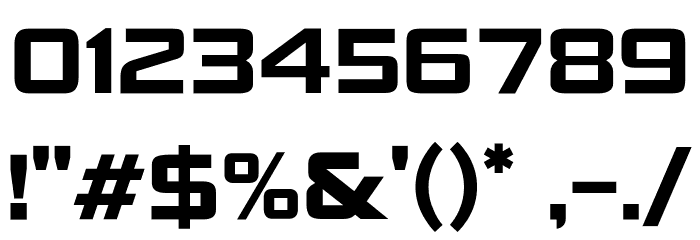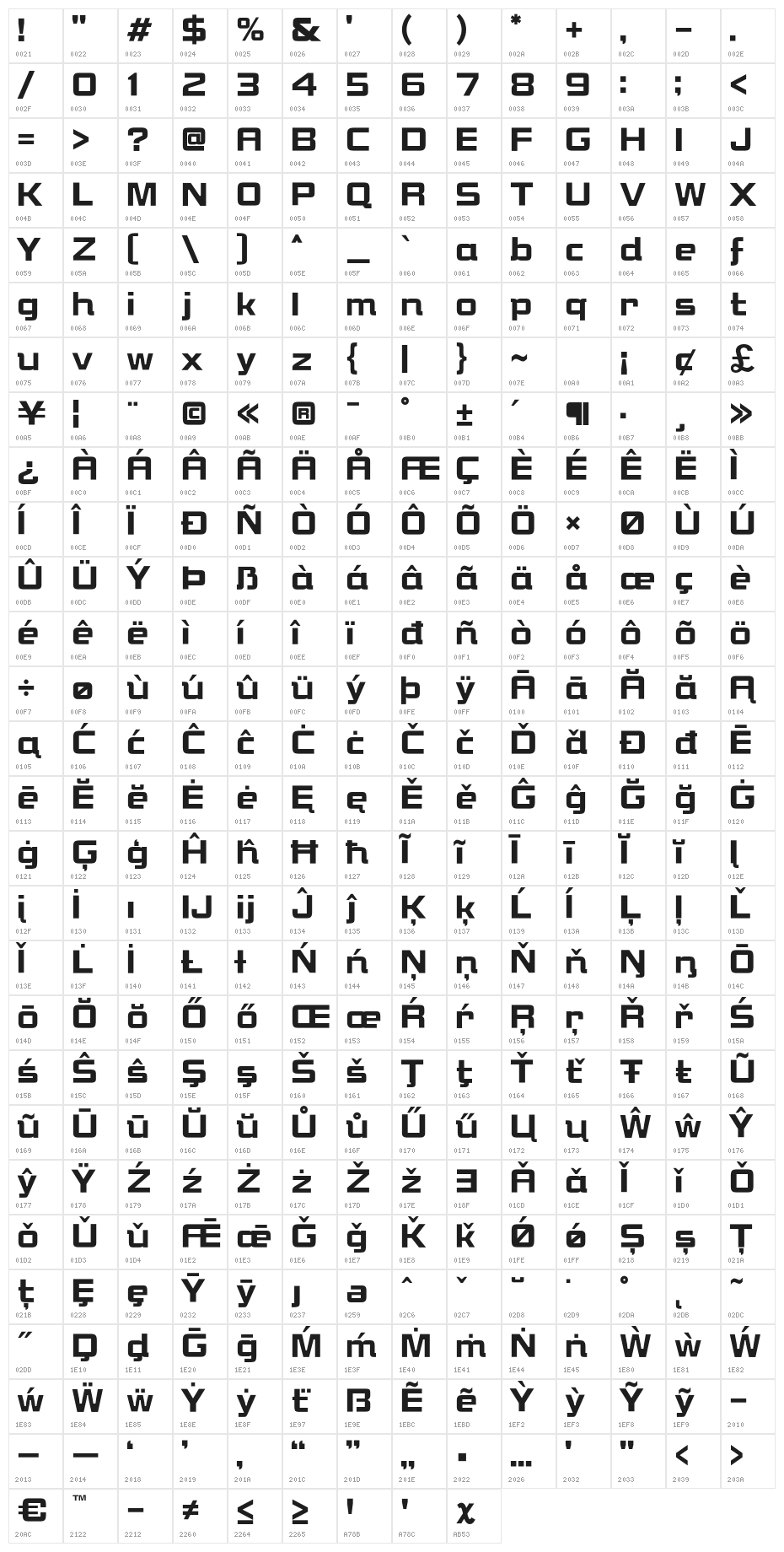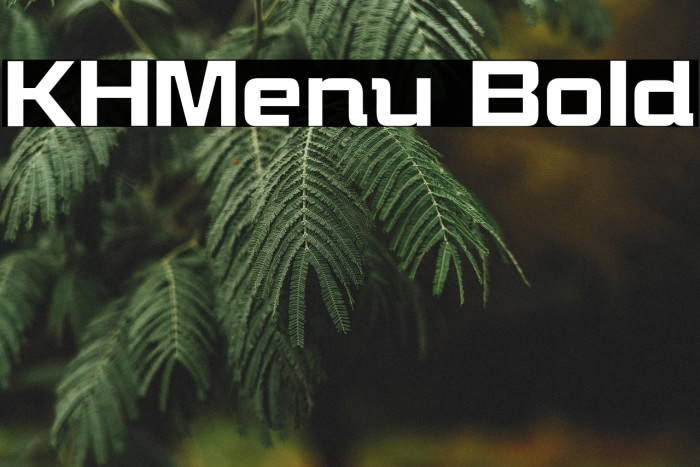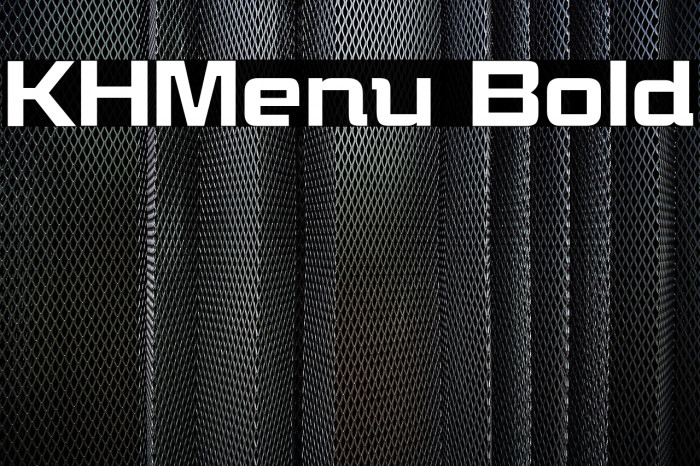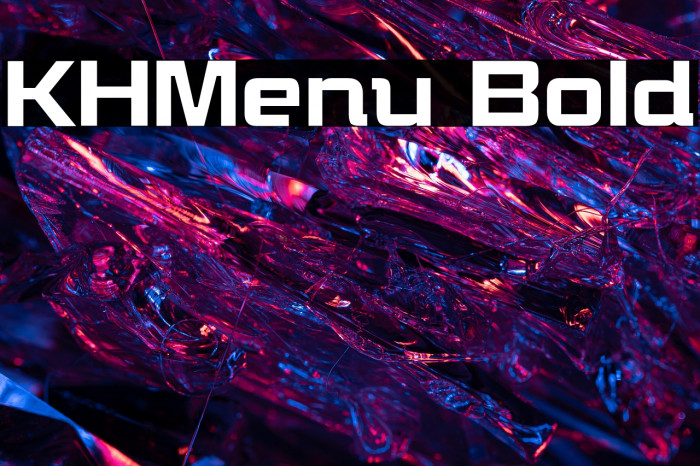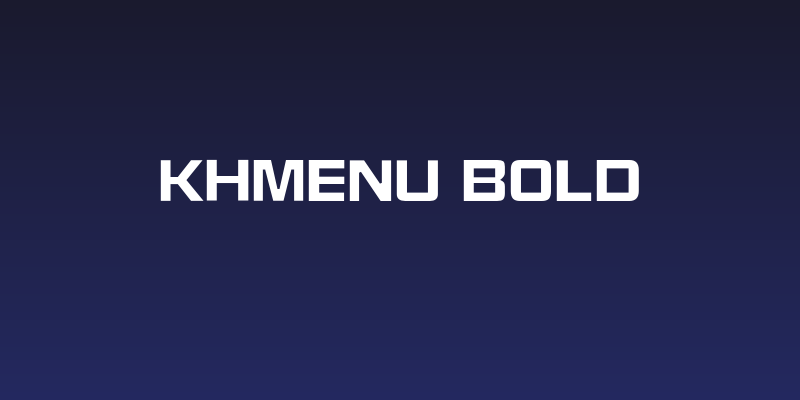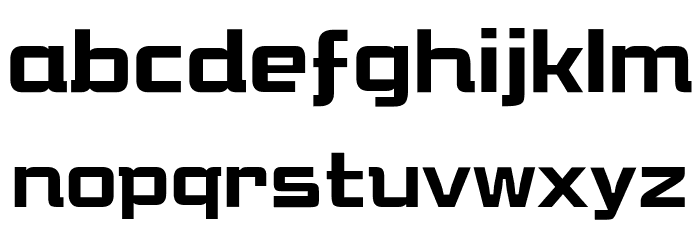
KHMenu Bold Font
KHMenu Bold Description
This font exhibits a bold and modern aesthetic with a geometric structure. The characters are uniformly thick, providing a strong and assertive presence on the page. The uppercase letters are particularly square and angular, while the lowercase letters maintain a consistent height and width, ensuring readability. The numerals are clear and distinct, matching the boldness of the alphabetic characters. Special characters are designed to complement the overall style, making this font versatile for various uses.
| Proposed Projects | Ideal for branding, headlines, posters, and digital interfaces where a strong, modern look is desired. |